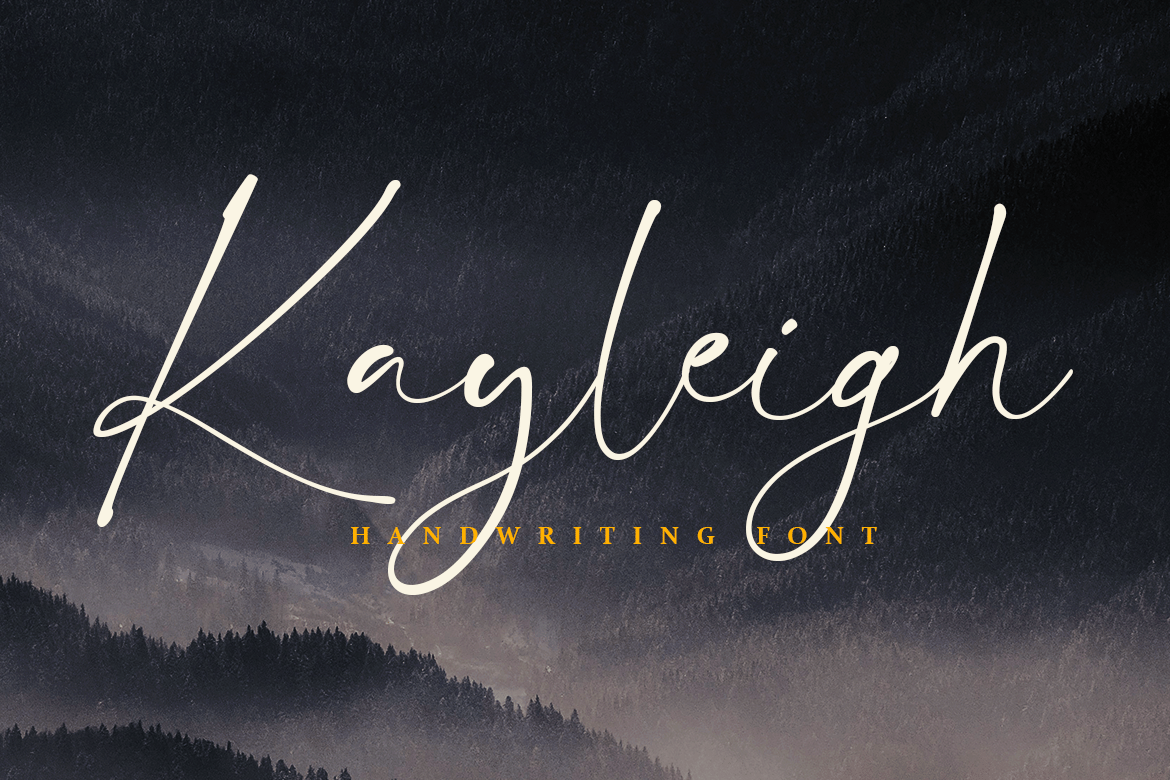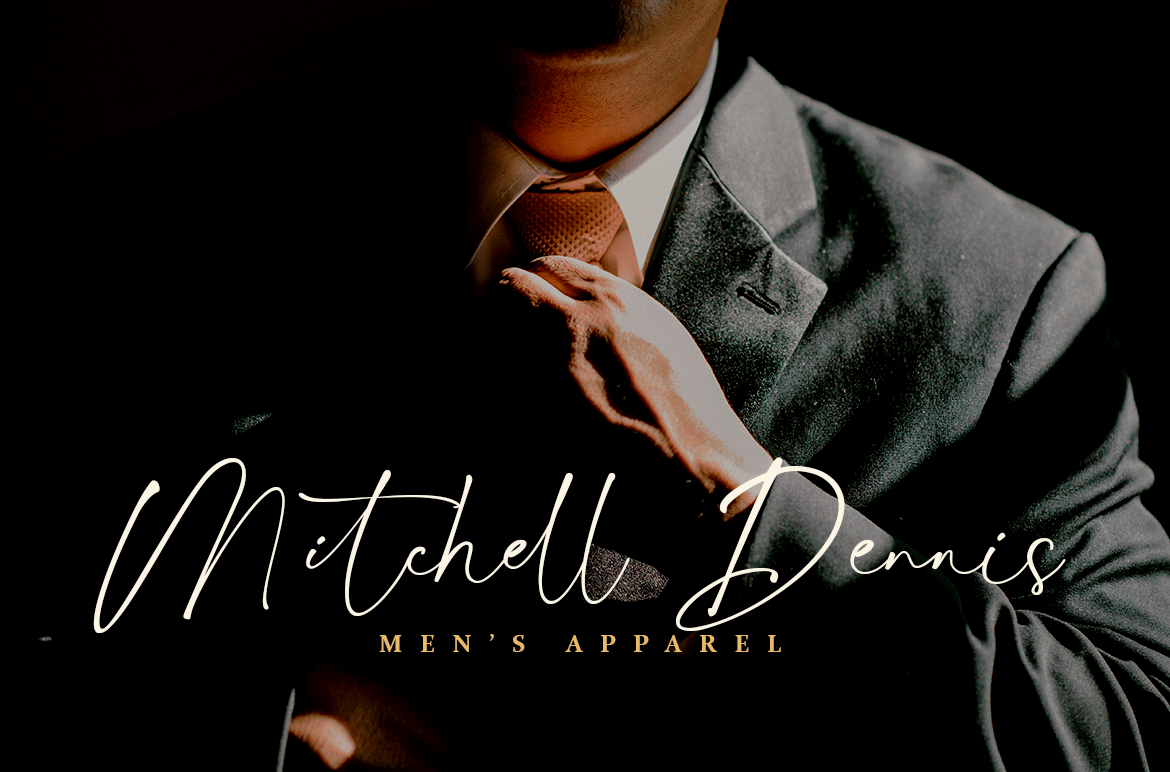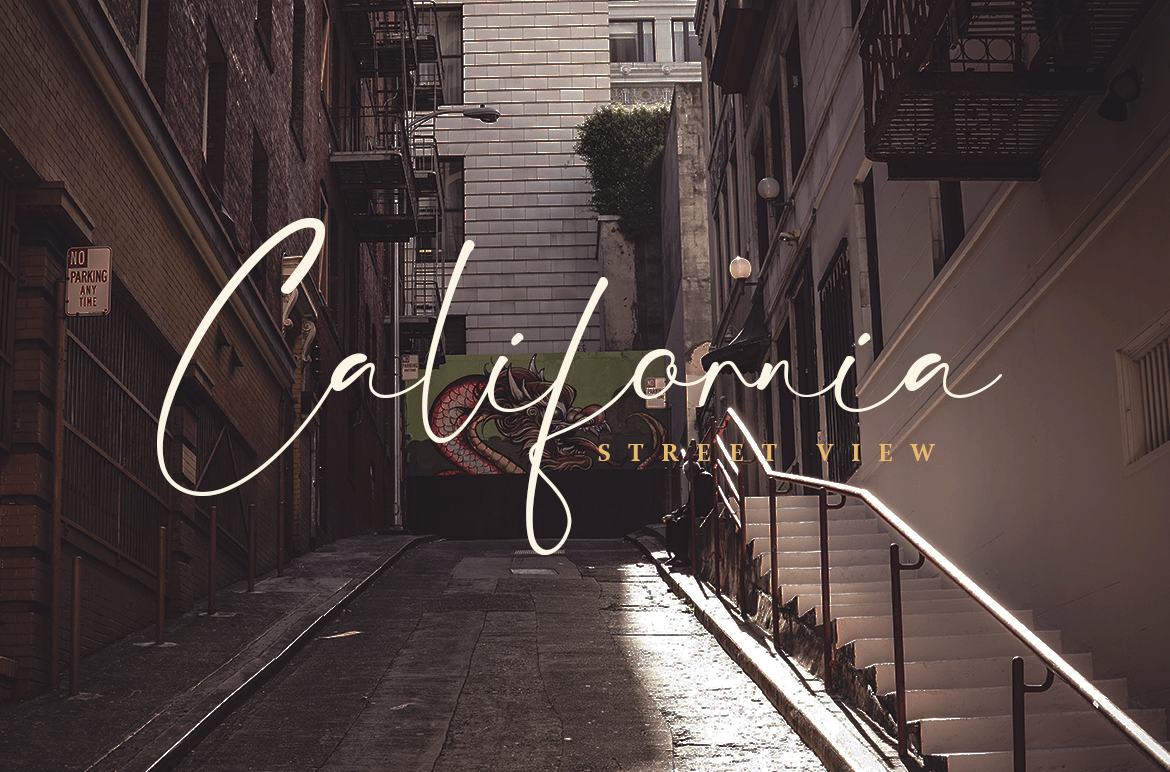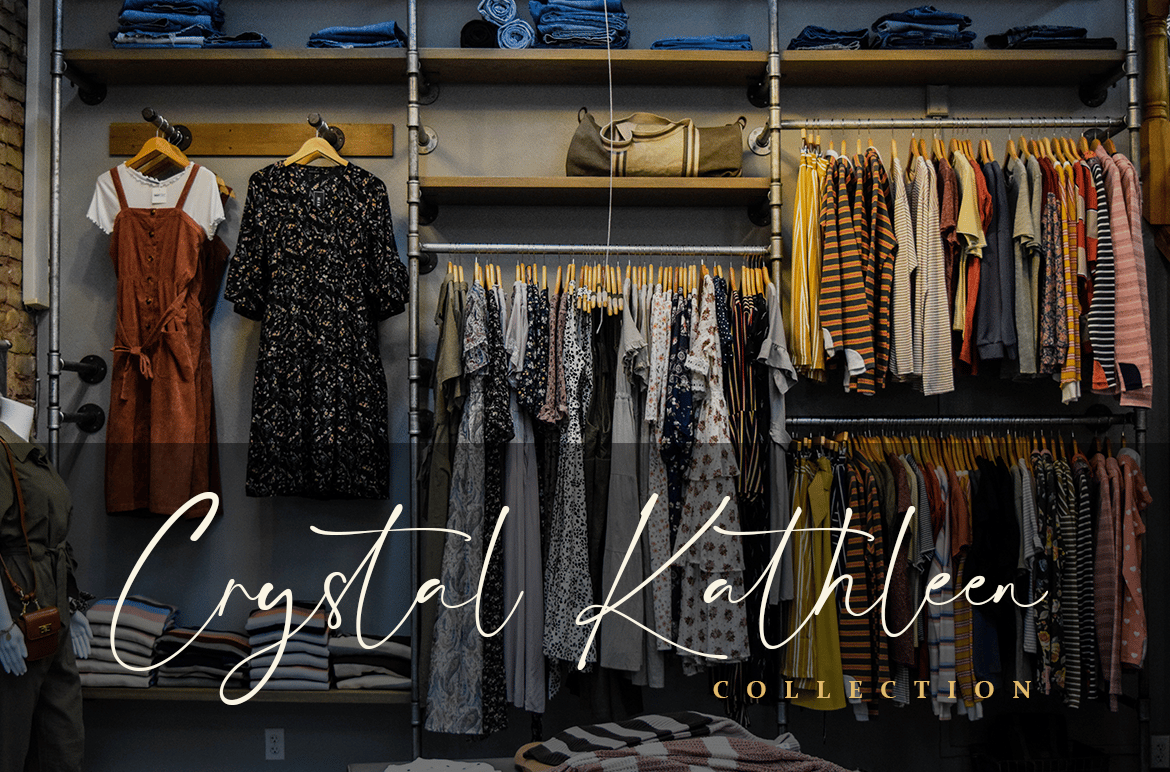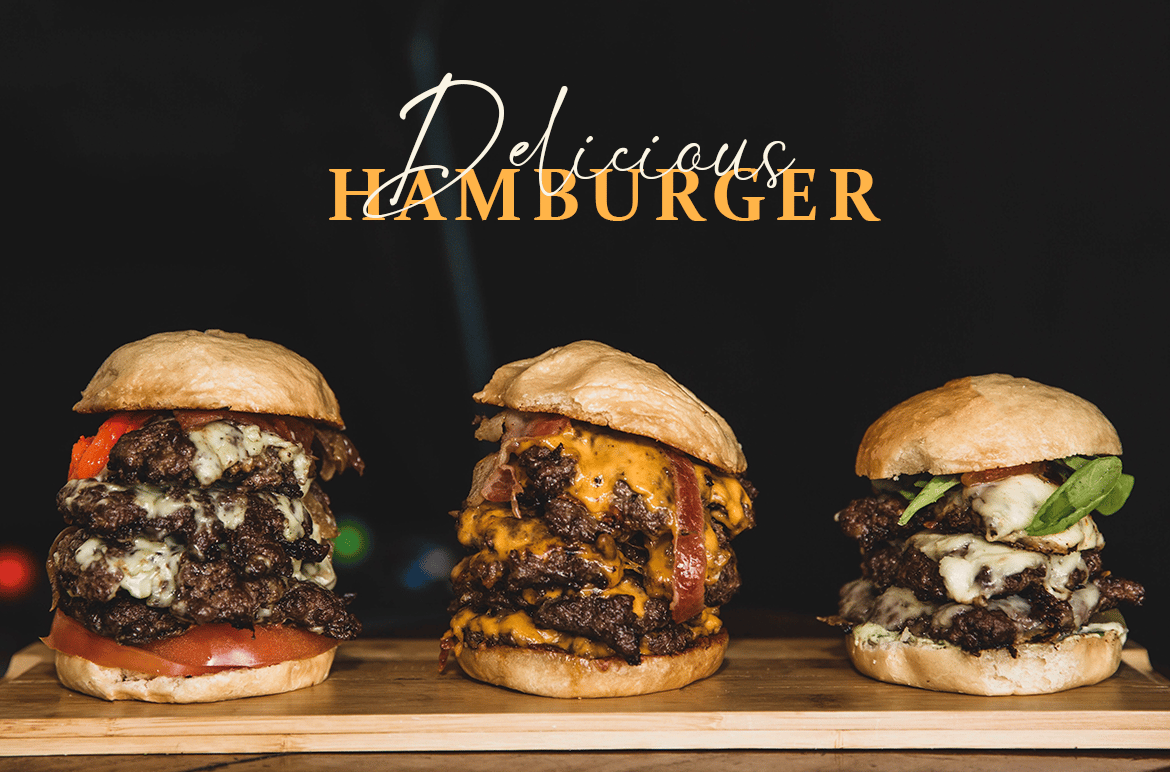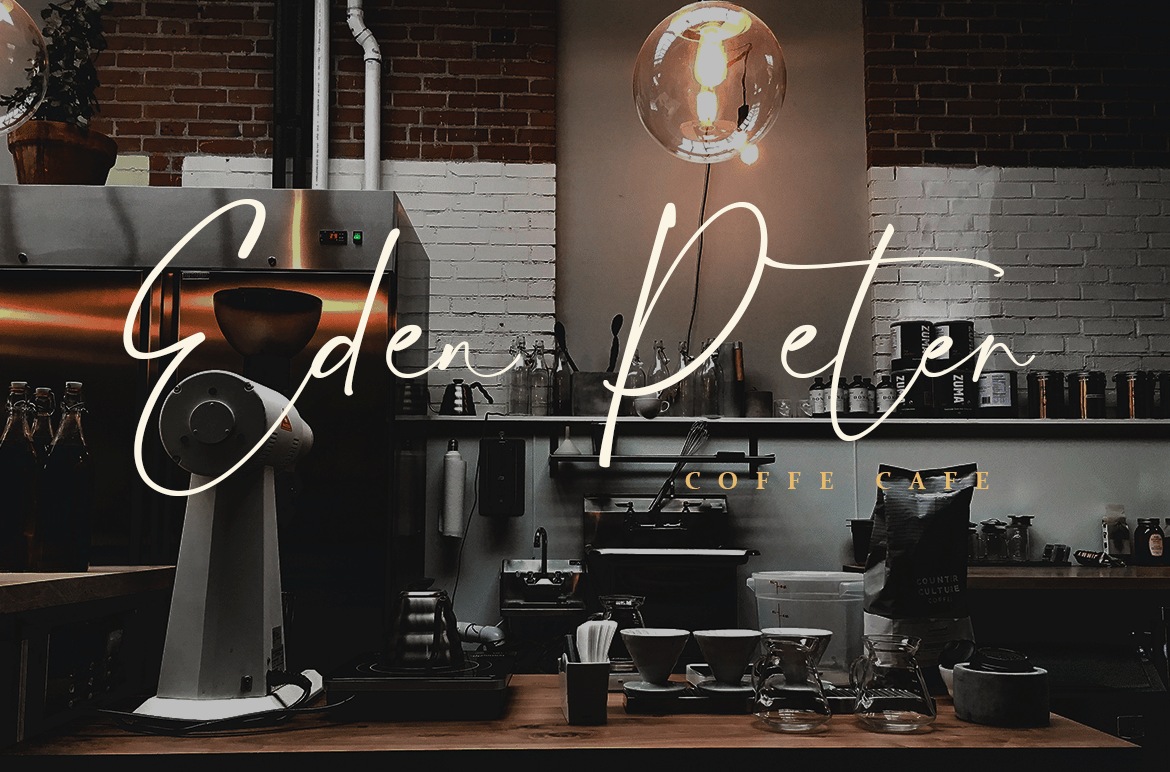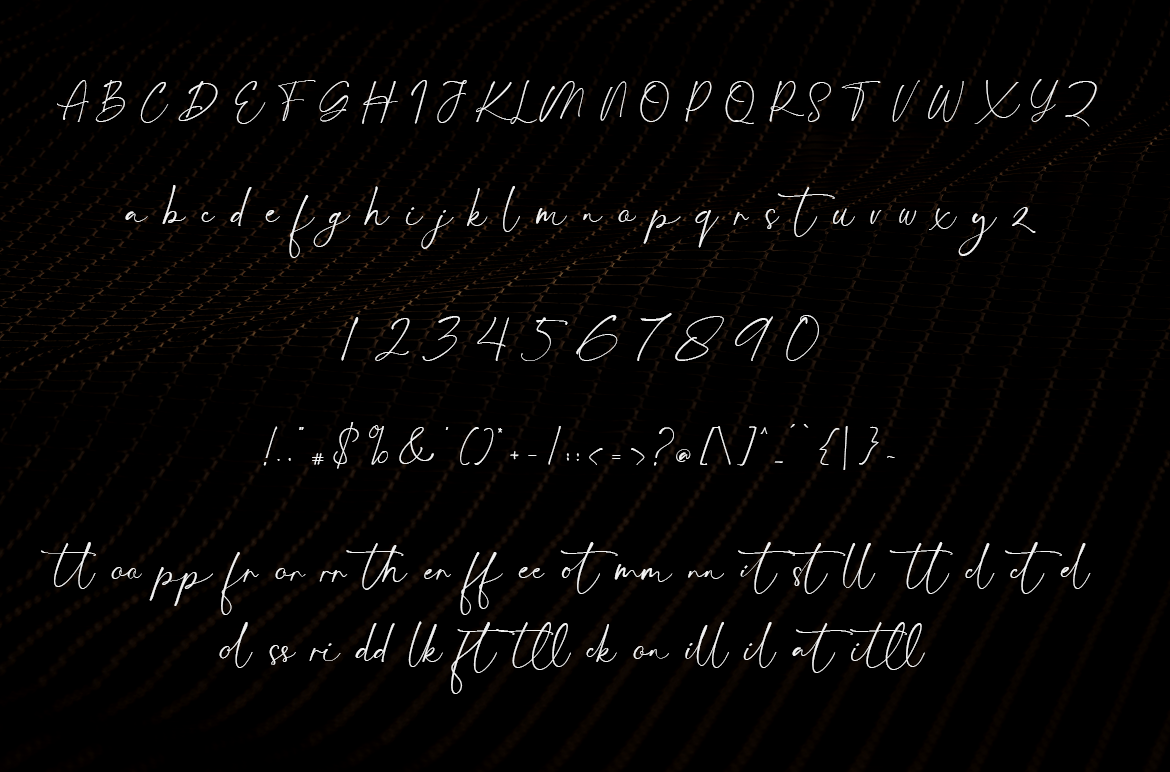
Kayleigh – Handwriting Font
Keyleigh is a hanwriting font with a natural and modern flow. It is perfect for logos, invitations, stationery, wedding designs, social media posts, advertisements, product packaging, product designs, label, photography, watermark, special events, or anything that needs a romantic, handwritten touch.
- uppercase & lowercase
- numbers and punctuation
- multilingual & ligatures